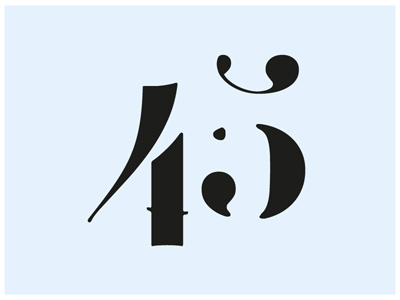
Femoralis Typeface
Femoralis is a didone stencil font, released 2010. Upper & lower case, numbers and other glyphs. You could buy it here: http://lukasgerber.bigcartel.com/product/femoralis-typeface